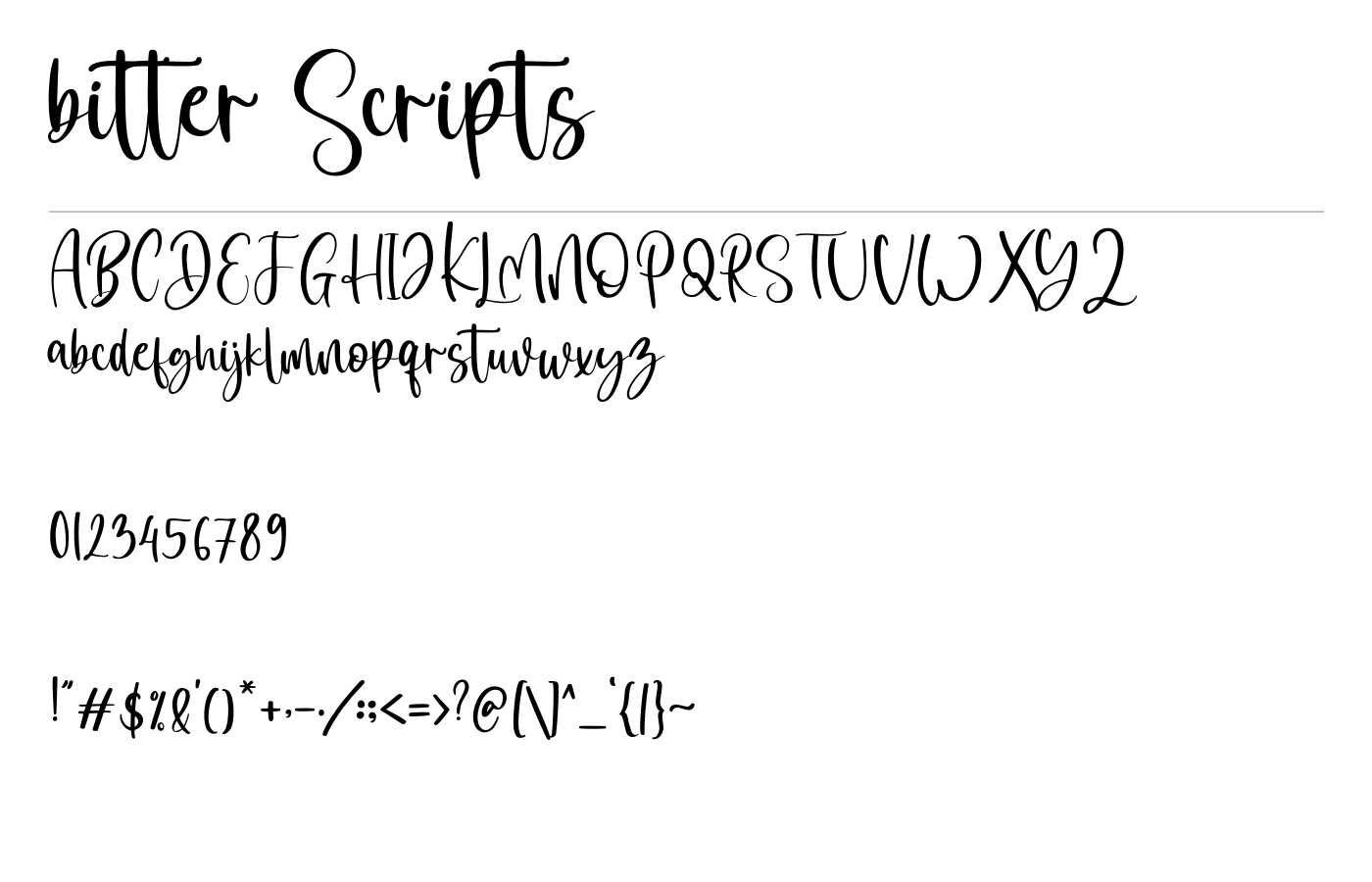
Bitter Scripts is a playful and elegant handwritten script font with a smooth, flowing style and varied stroke widths that give it a lively, approachable feel. Its tall, slender letterforms and distinctive curls make it ideal for creative branding, invitations, and casual yet stylish headlines. This font works well when you want to convey warmth and personality with a touch of sophistication.
bitter Scripts Font
About bitter Scripts Font
| Font family | bitter Scripts Font |
| Designer | Ferdiansyah |